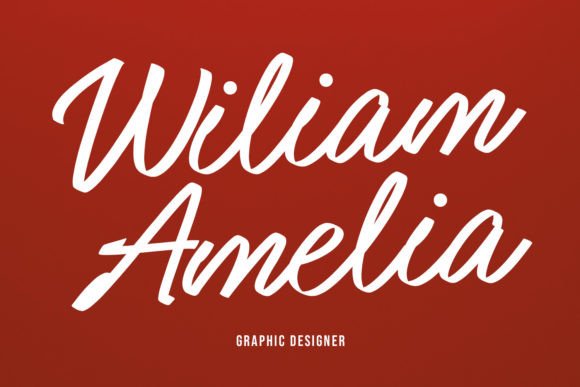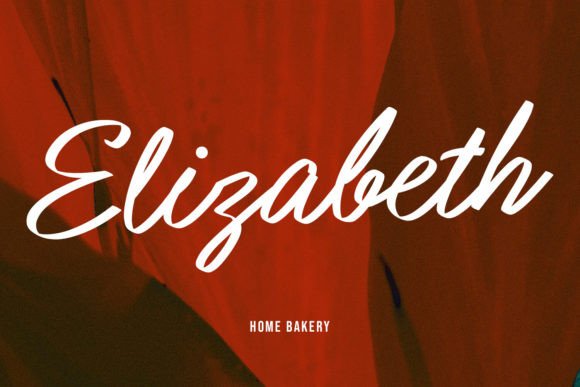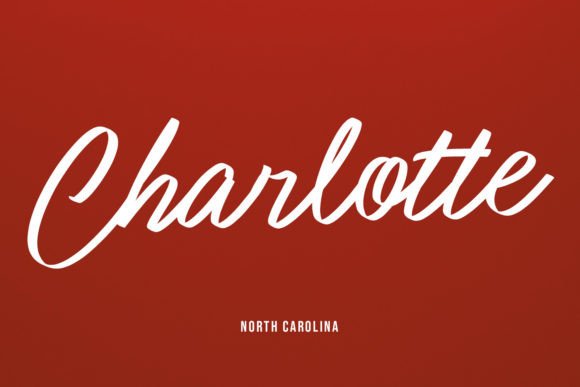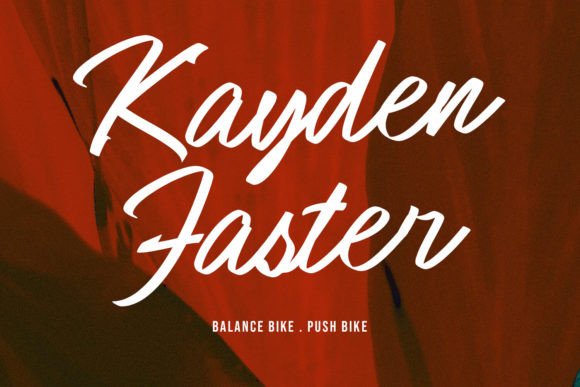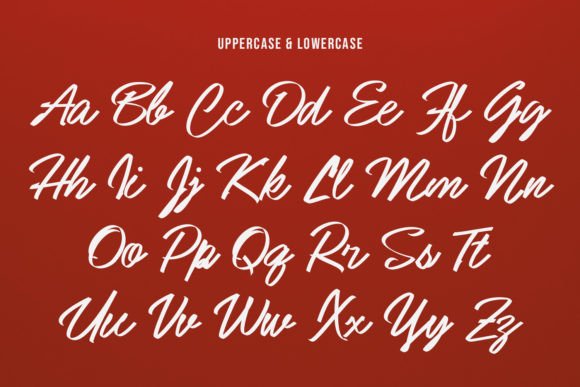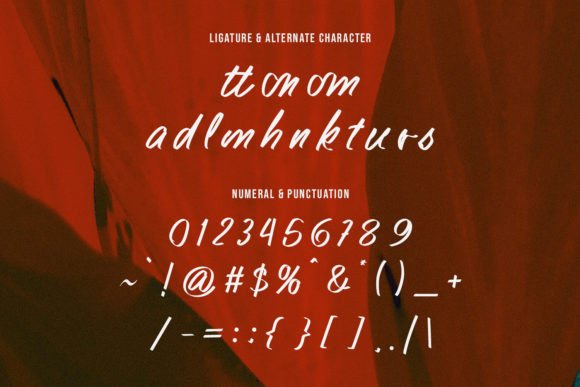
Introducing Amiley Font: The Handmade Script Font for Creative Projects
Are you a designer or crafter looking for a unique and versatile font to elevate your creative projects? Look no further than Amiley Font, a beautiful handmade script font that is perfect for a variety of applications. In this article, we’ll explore the features and benefits of Amiley Font, and show you how to make stunning work with this exceptional typeface.
What is Amiley Font?
Amiley Font is a carefully crafted handmade script font that exudes elegance and sophistication. With its flowing lines and delicate curves, this font is perfect for adding a touch of personality to your designs. Whether you’re working on a logo, social media graphics, movie titles, book titles, or even long text letters, Amiley Font is an excellent choice.
Key Features of Amiley Font
- Handmade script font: Amiley Font is a unique, handcrafted script font that adds a personal touch to your designs.
- Versatile: This font is suitable for a wide range of applications, from logo design and social media graphics to movie titles, book titles, and more.
- Easy to read: Despite its ornate appearance, Amiley Font is surprisingly easy to read, making it perfect for both short and long text.
- Signature or script typeface: Amiley Font is ideal for use as a secondary text font, paired with a signature or script typeface for added visual interest.
Use Cases for Amiley Font
So, what can you create with Amiley Font? The possibilities are endless! Here are a few ideas to get you started:
- Logo design: Use Amiley Font to create a unique and memorable logo for your brand or business.
- Social media graphics: Add a touch of elegance to your social media graphics, including Facebook posts, Instagram stories, and more.
- Movie titles: Create eye-catching movie titles and taglines with Amiley Font.
- Book titles: Use Amiley Font to create beautiful book titles and covers.
- Long text letters: Amiley Font is surprisingly easy to read, making it perfect for longer text passages, such as letters or articles.
Tips for Using Amiley Font
To get the most out of Amiley Font, here are a few tips to keep in mind:
- Pair with a simple font: For best results, pair Amiley Font with a simple, clean font to create visual contrast.
- Use for headlines and titles: Amiley Font is perfect for headlines and titles, where its ornate appearance can really shine.
- Experiment with colors and textures: Don’t be afraid to experiment with different colors and textures to add depth and interest to your designs.